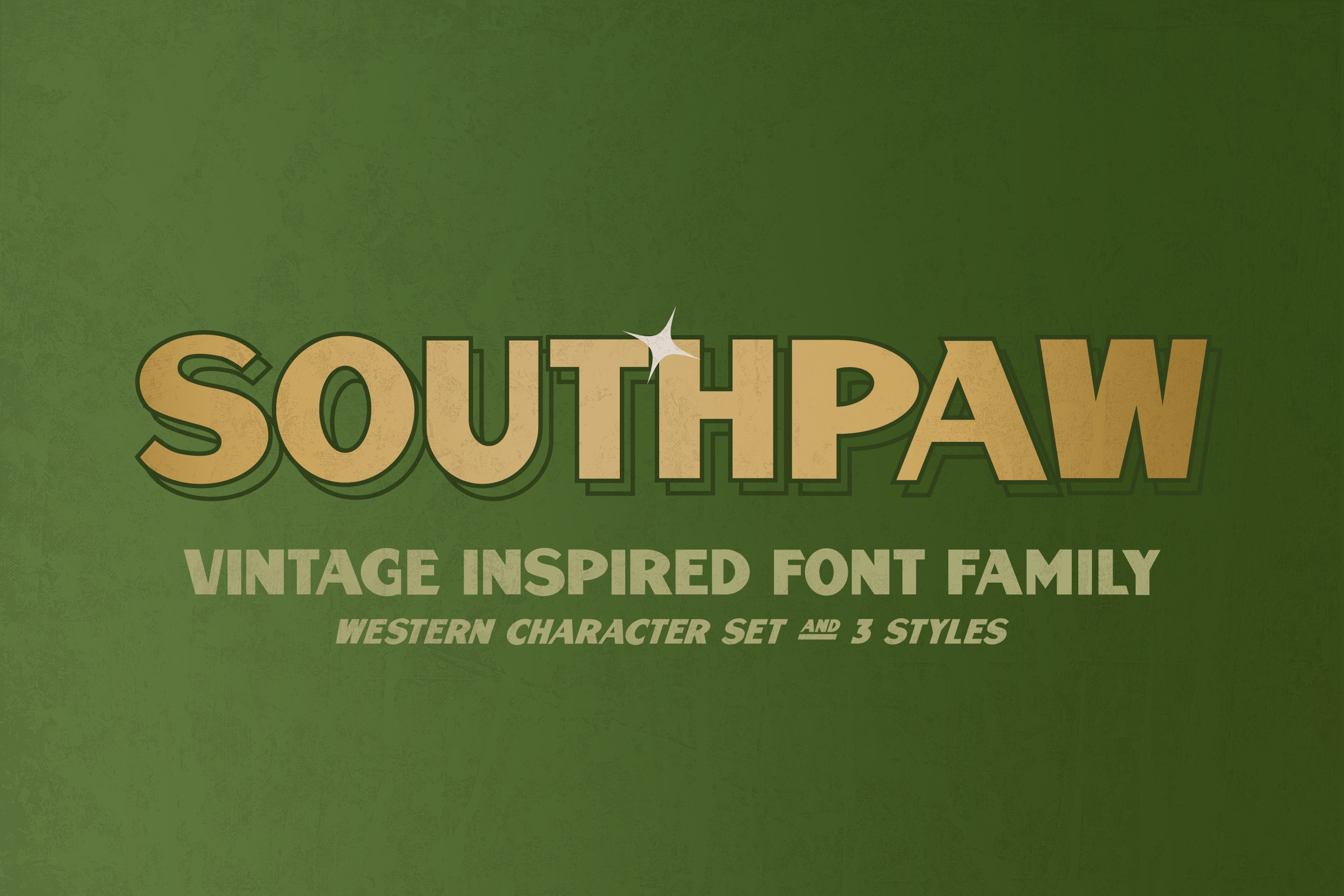
Southpaw Vintage Font Family
Vintage all caps display with regular, italic, and reverse italic.
Inspired by hand painted signage and dingy dive bars, Southpaw is perfect for titles, logos, and packaging.